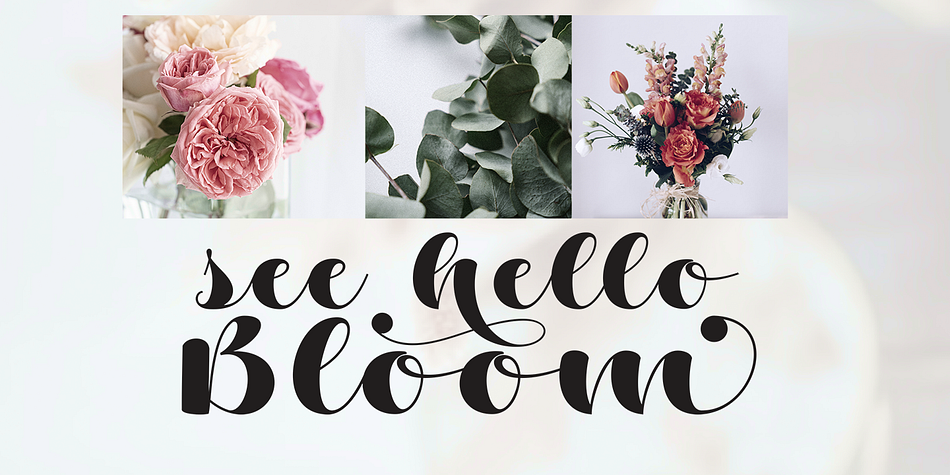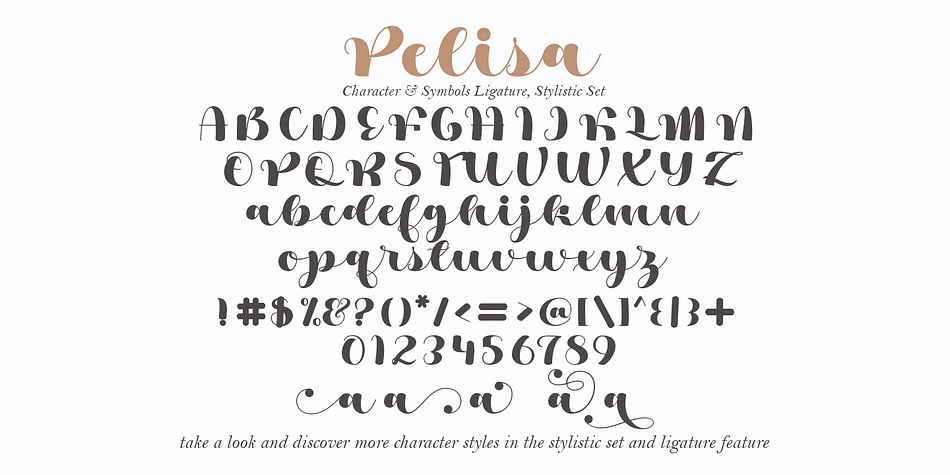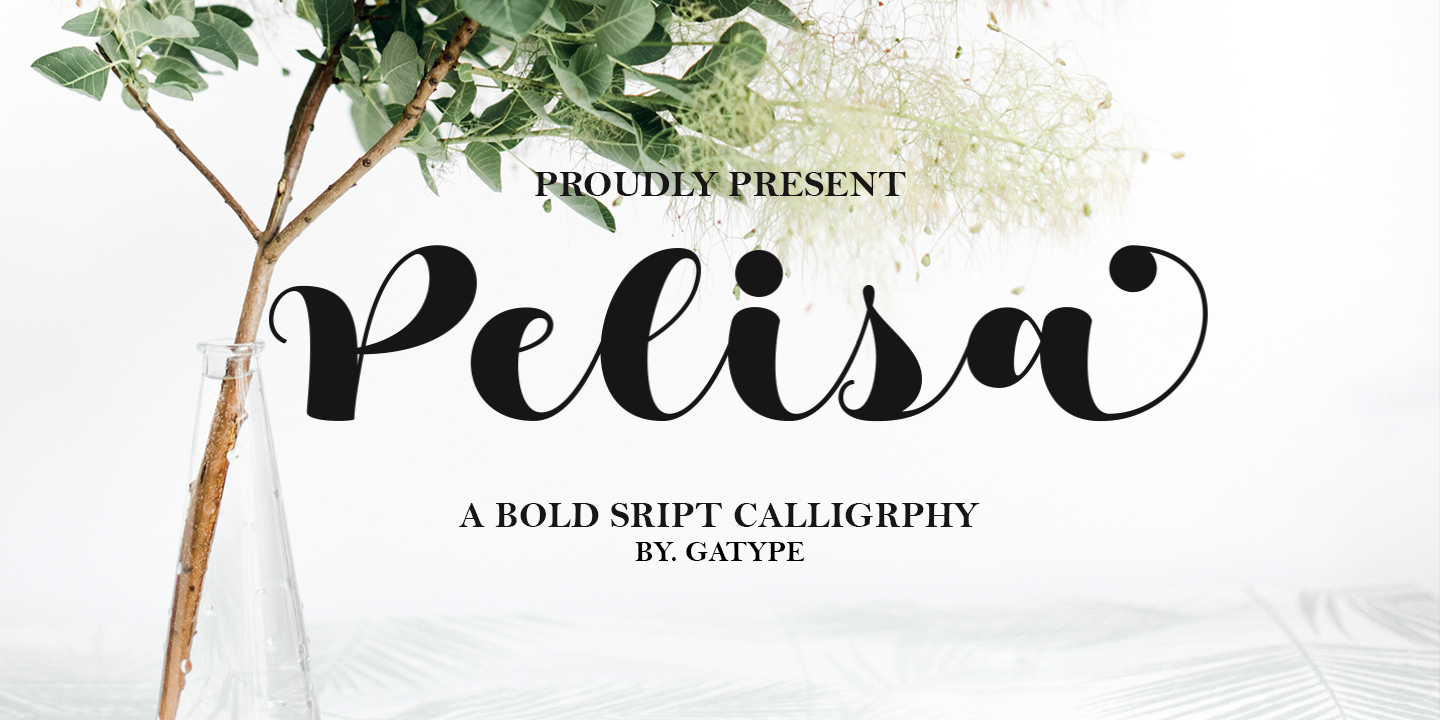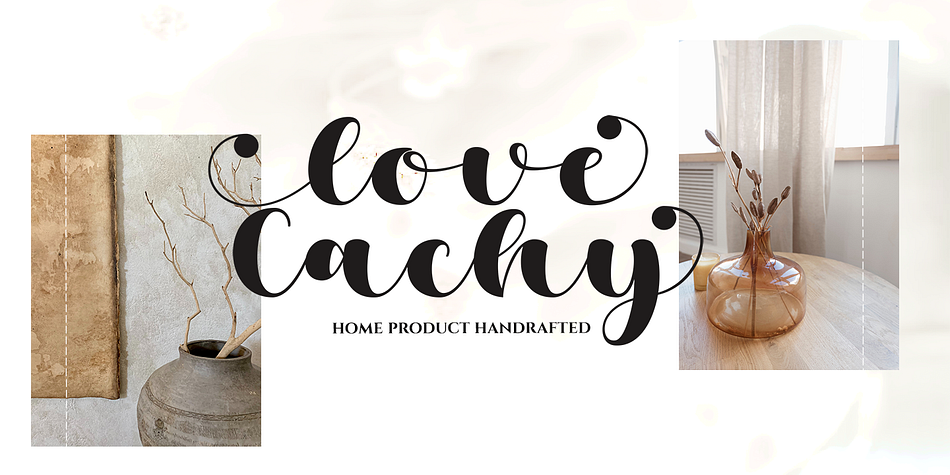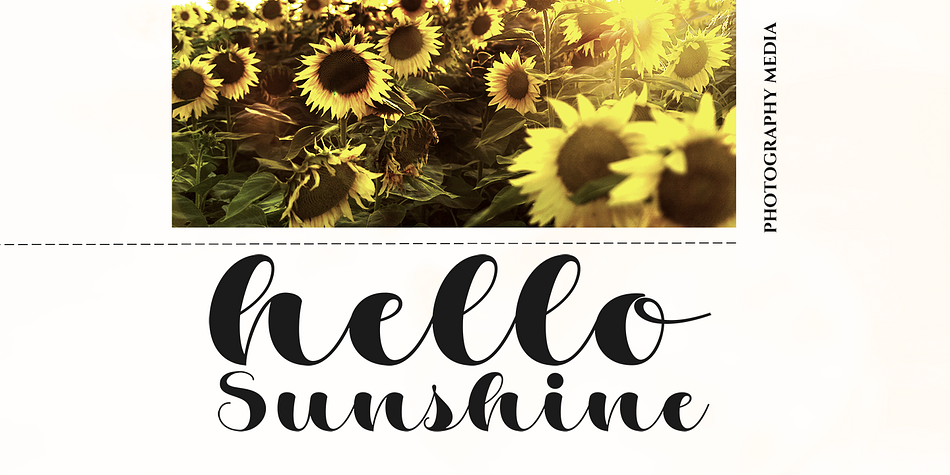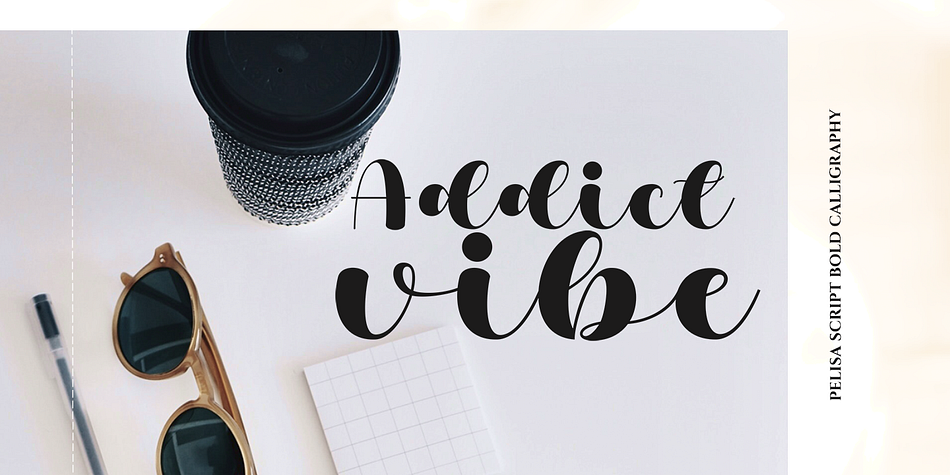
Pelisa
Pelisa is a modern calligraphy font family published by Gatype.
Pelisa is a modern calligraphy design volume including four fonts. a regular script, style script and upright script. This font is casual and graceful. Ideal for wedding invitations, signage, headlines, logos, packaging, product branding, etc.
Pelisa Script including OpenType Stylistic alternates, ligatures and international language support.